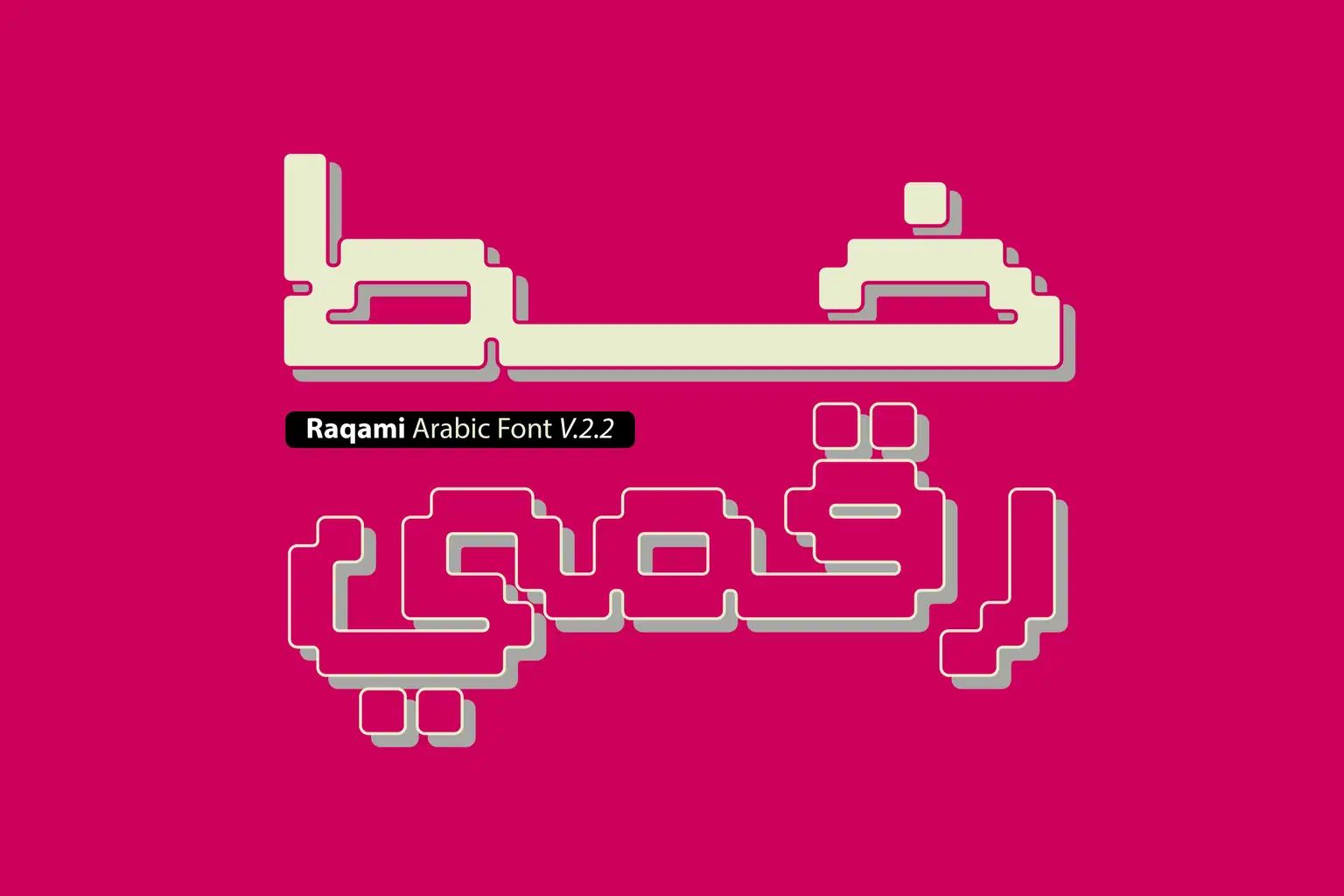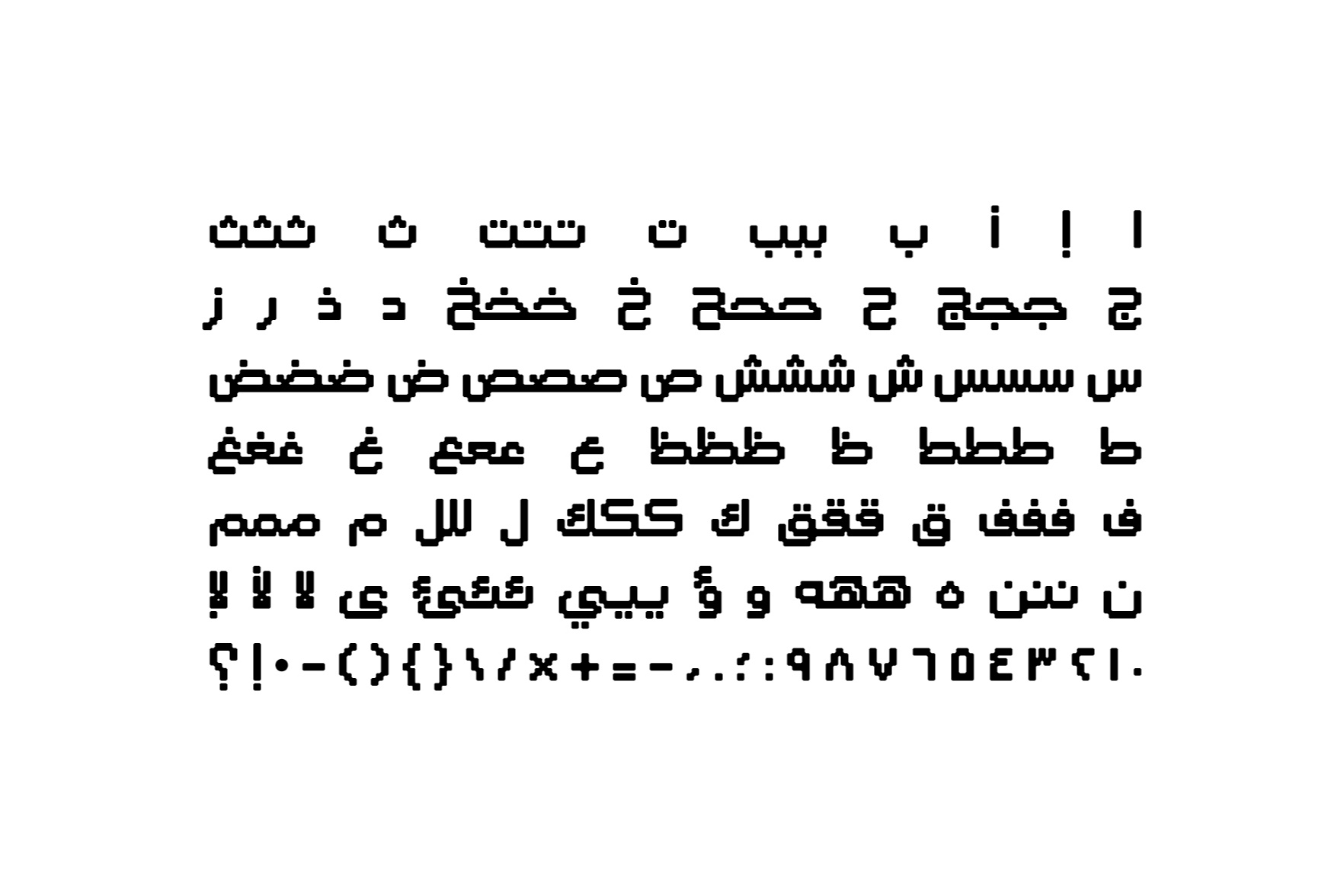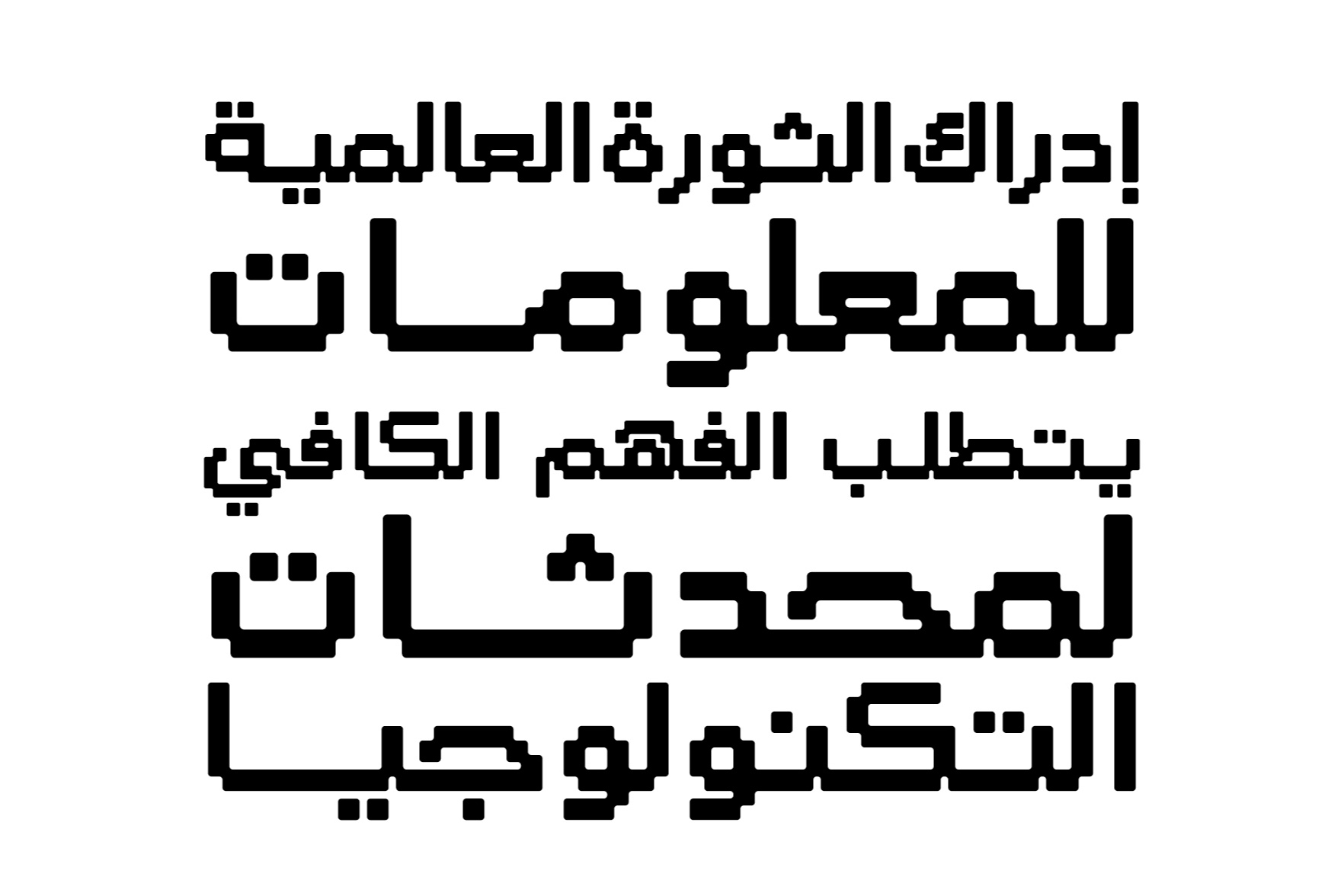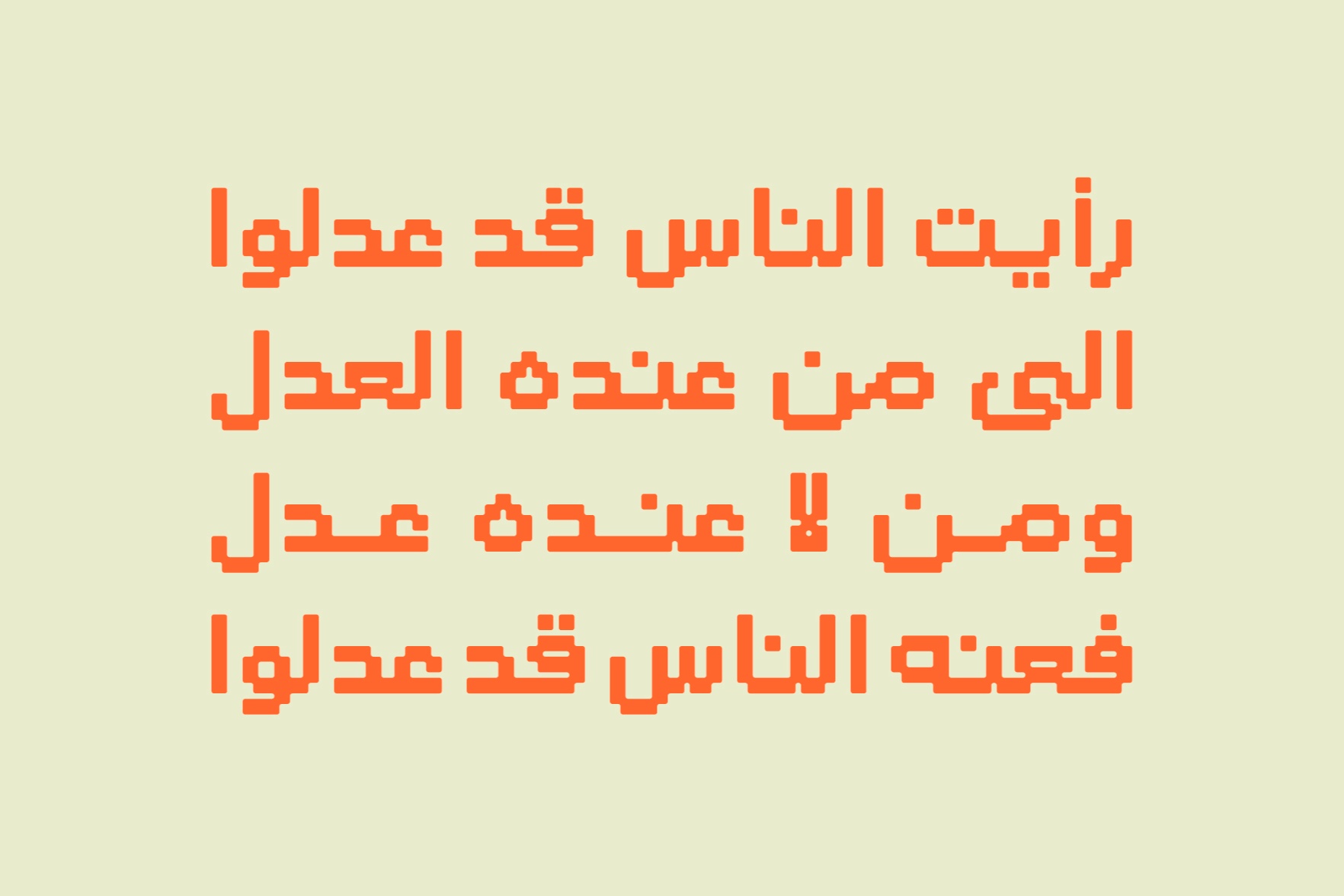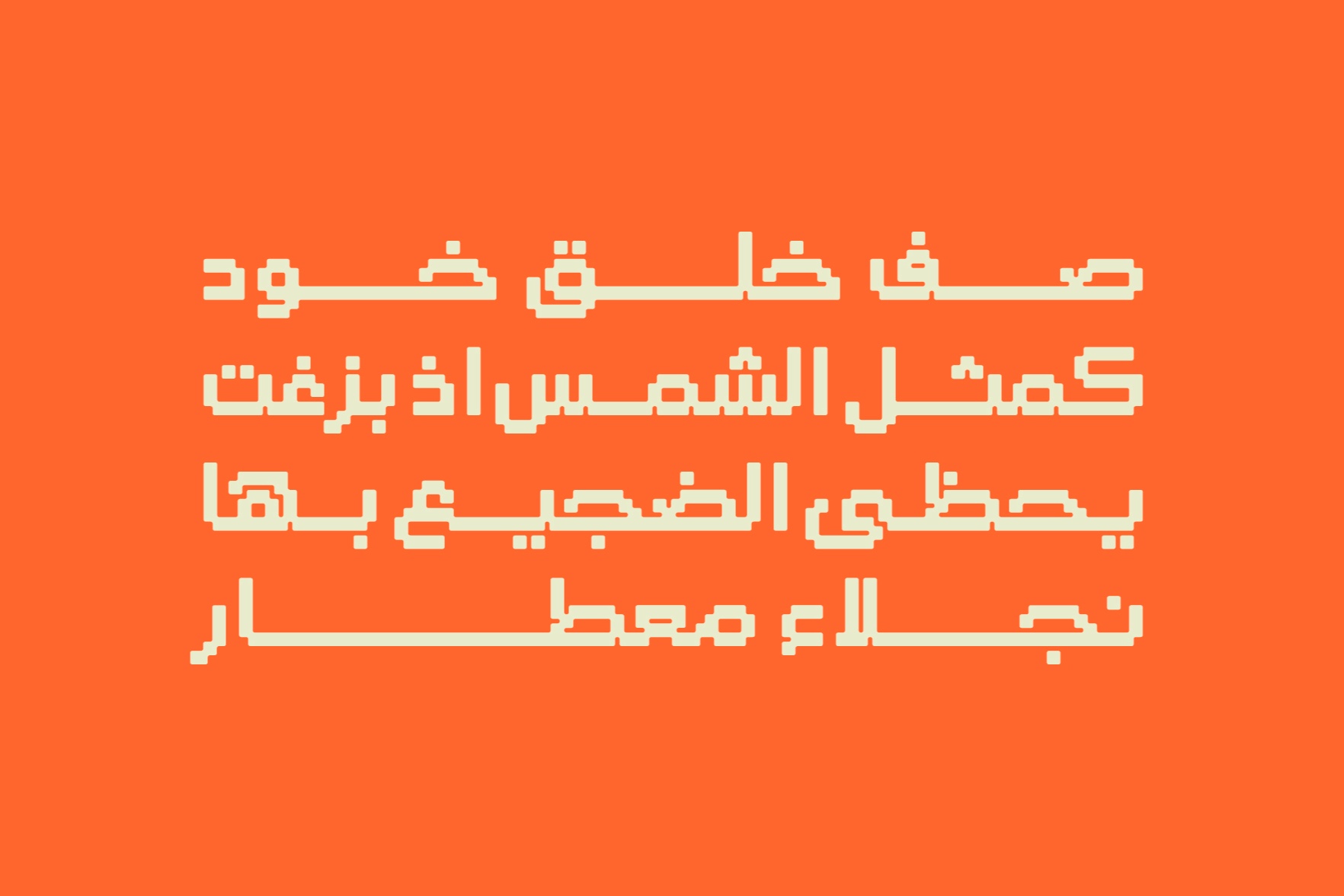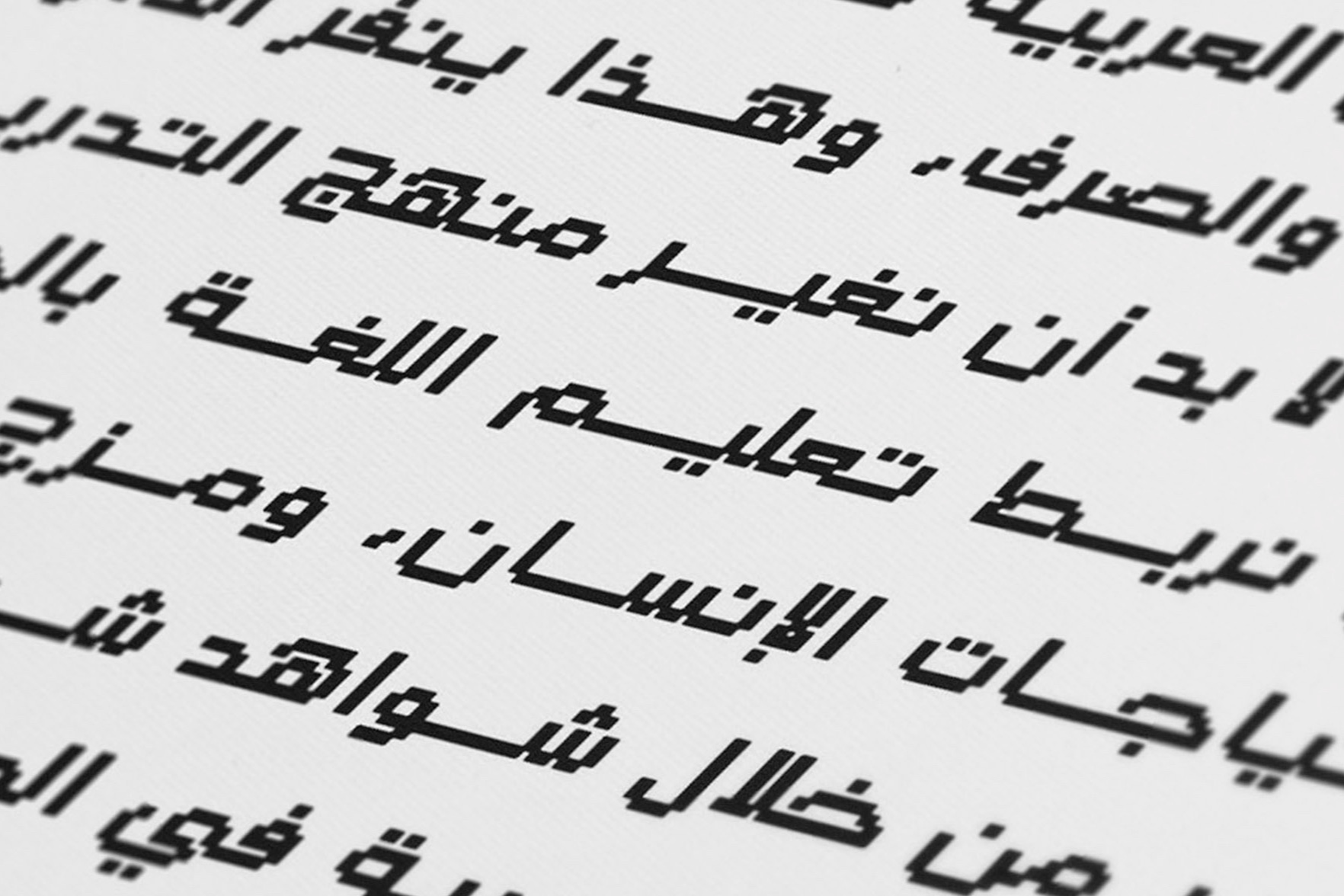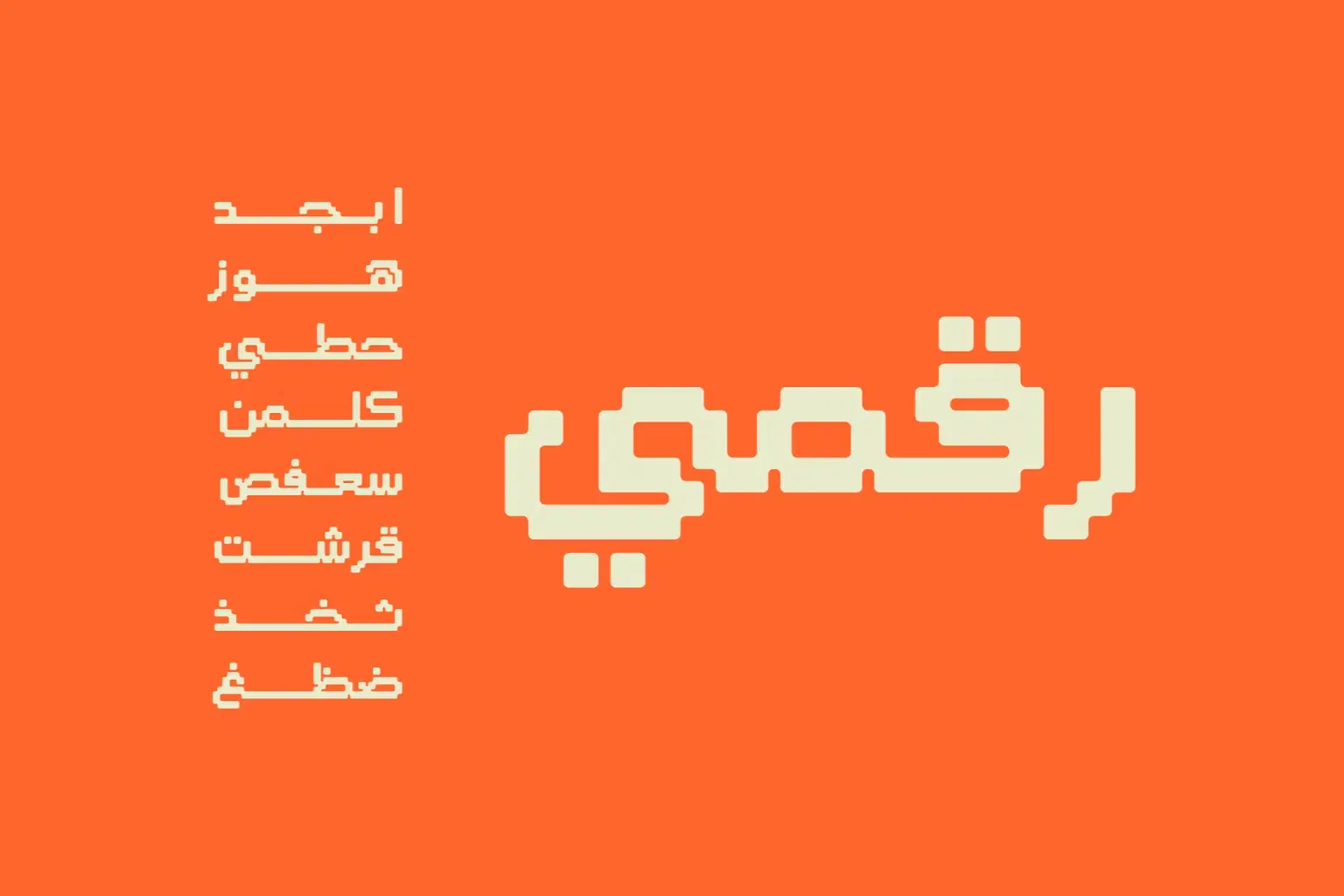
Raqami (the Arabic word for 'Digital') is an Arabic display typeface that features a pixelated letterform design, drawing inspiration from the 8-bit graphic style. The font is suitable for contemporary design projects, including print advertising, as well as web and mobile applications.